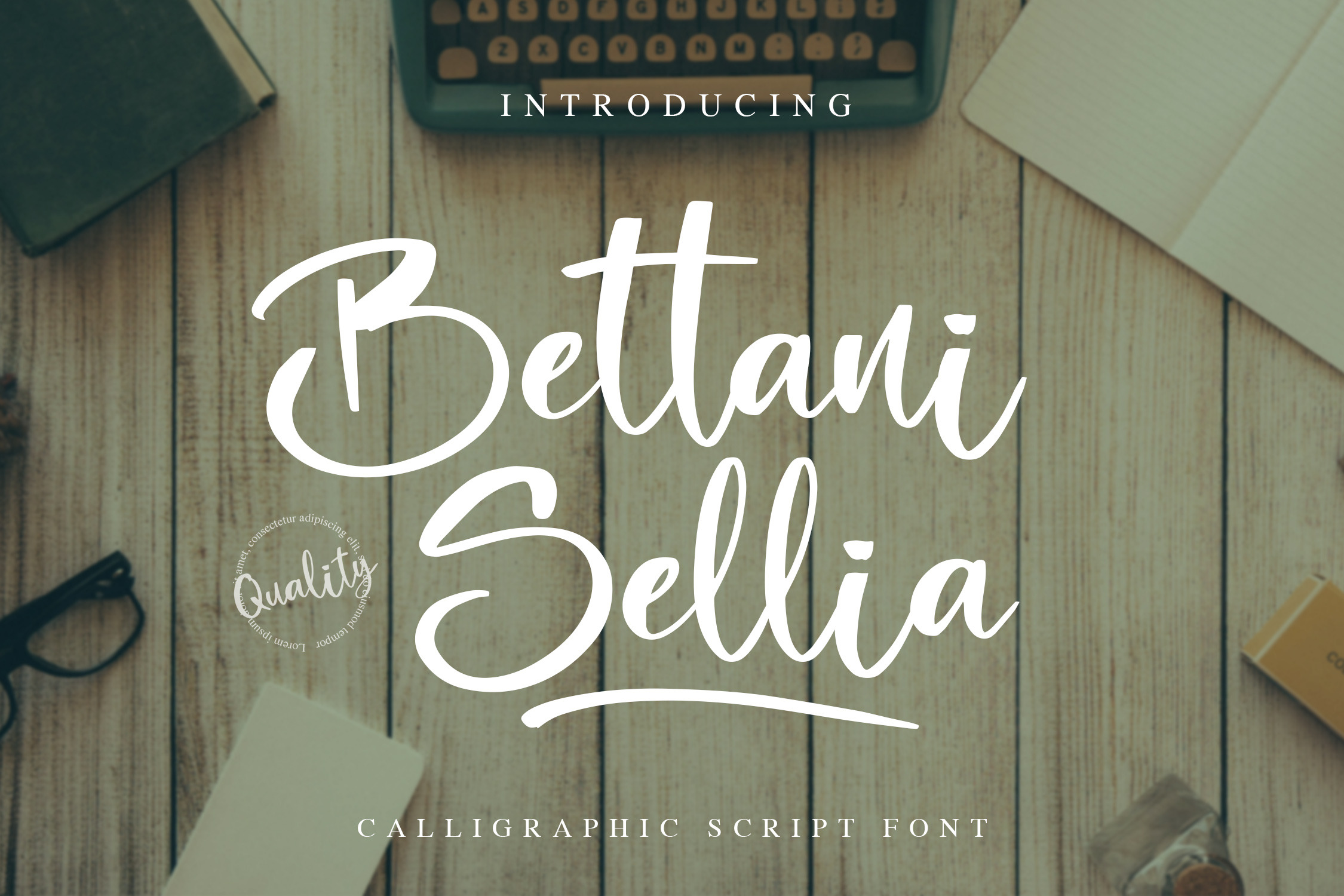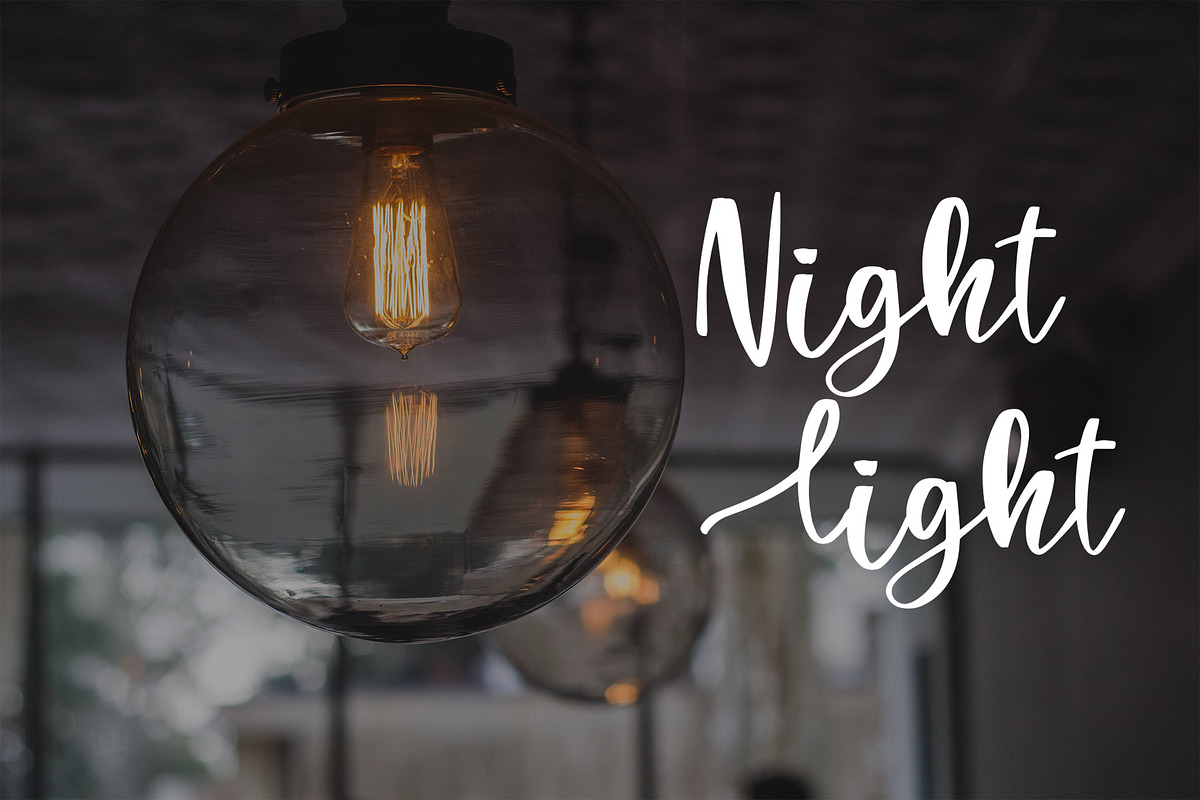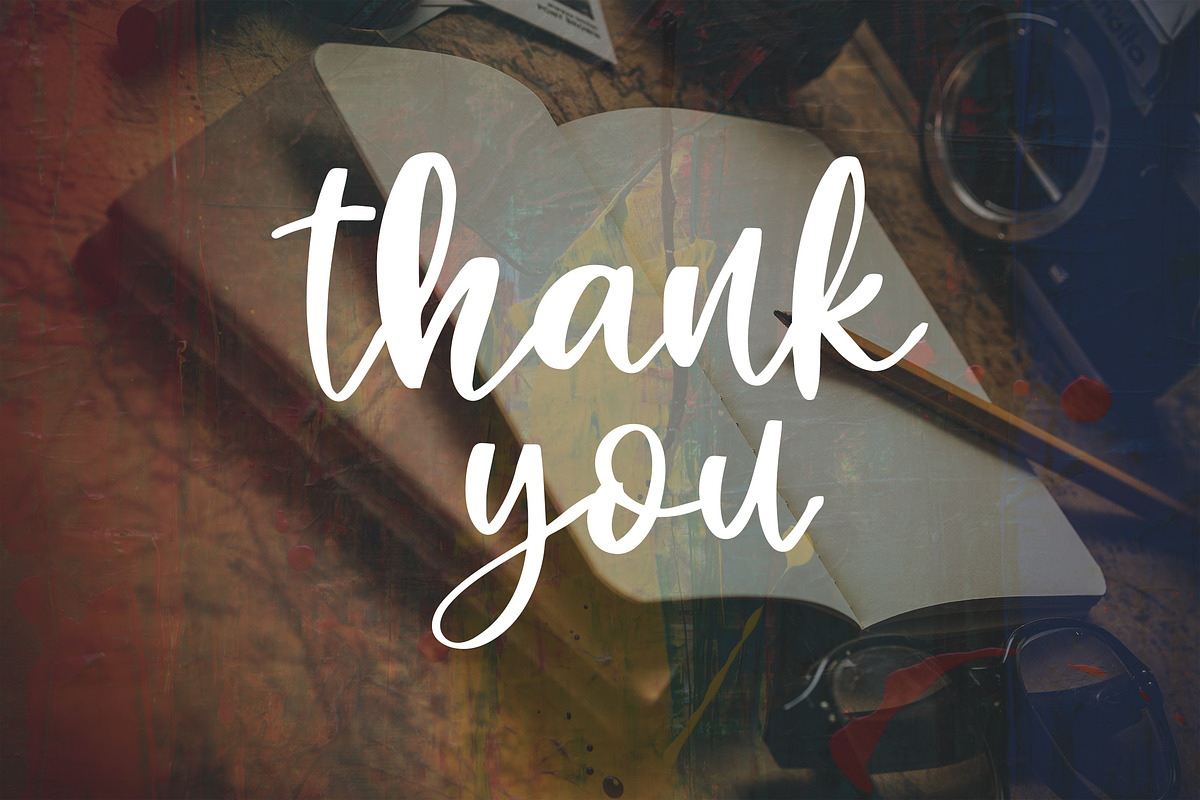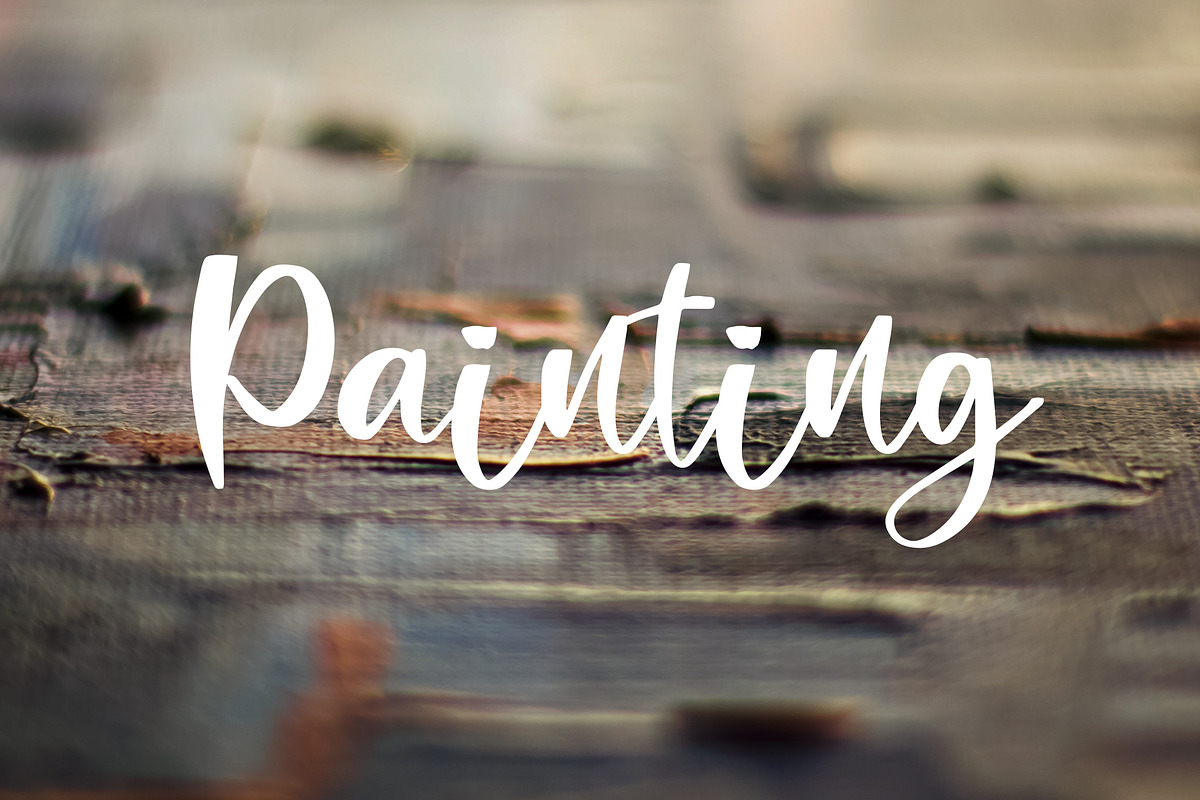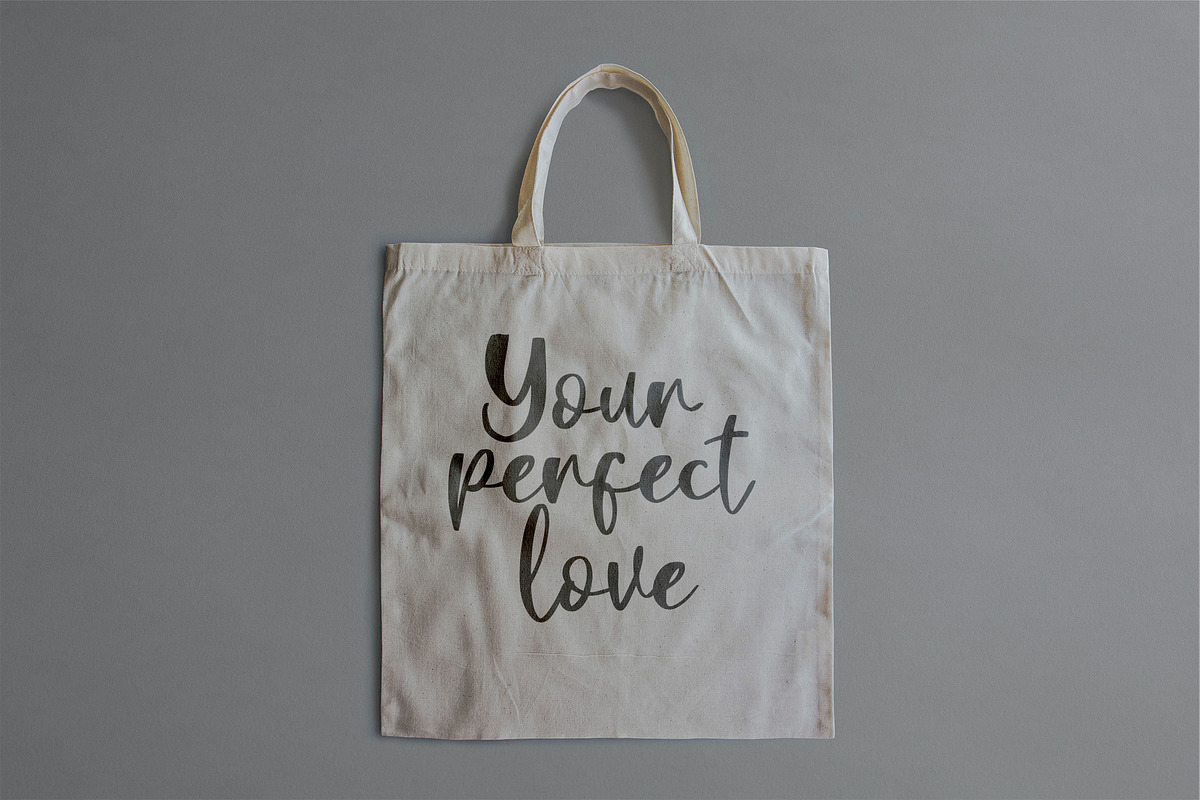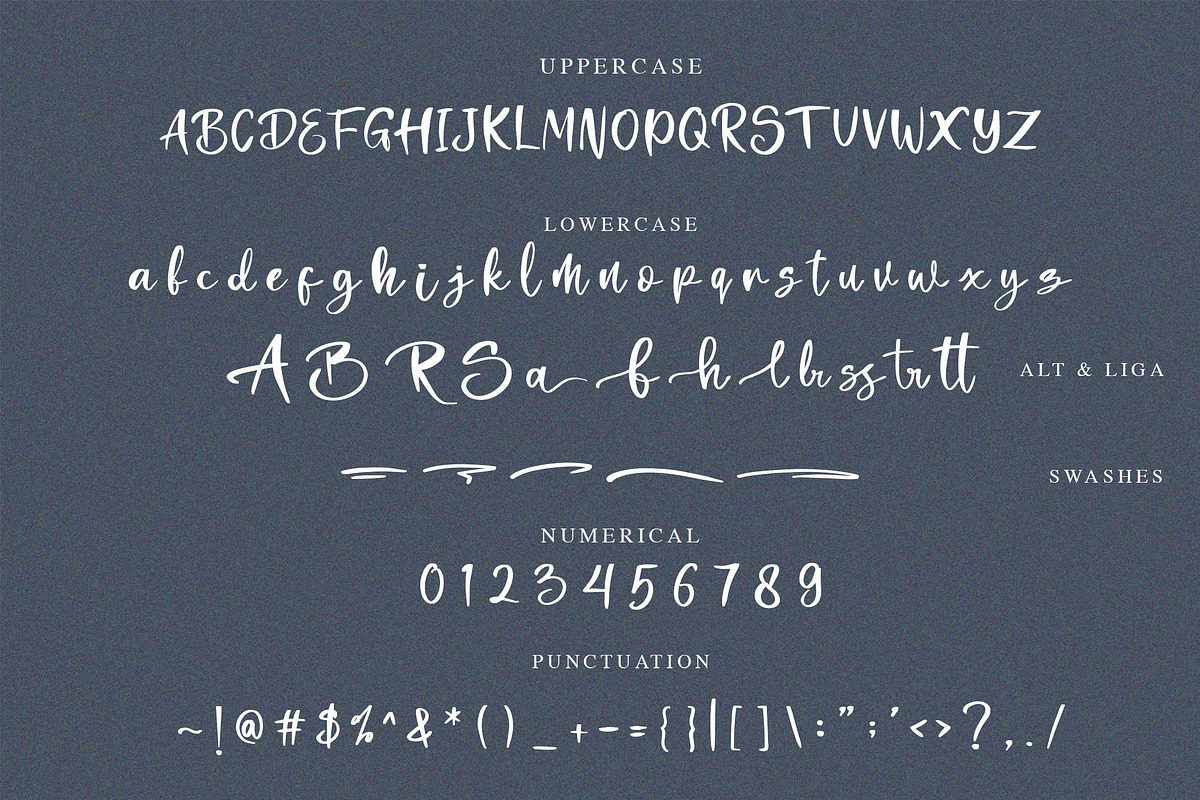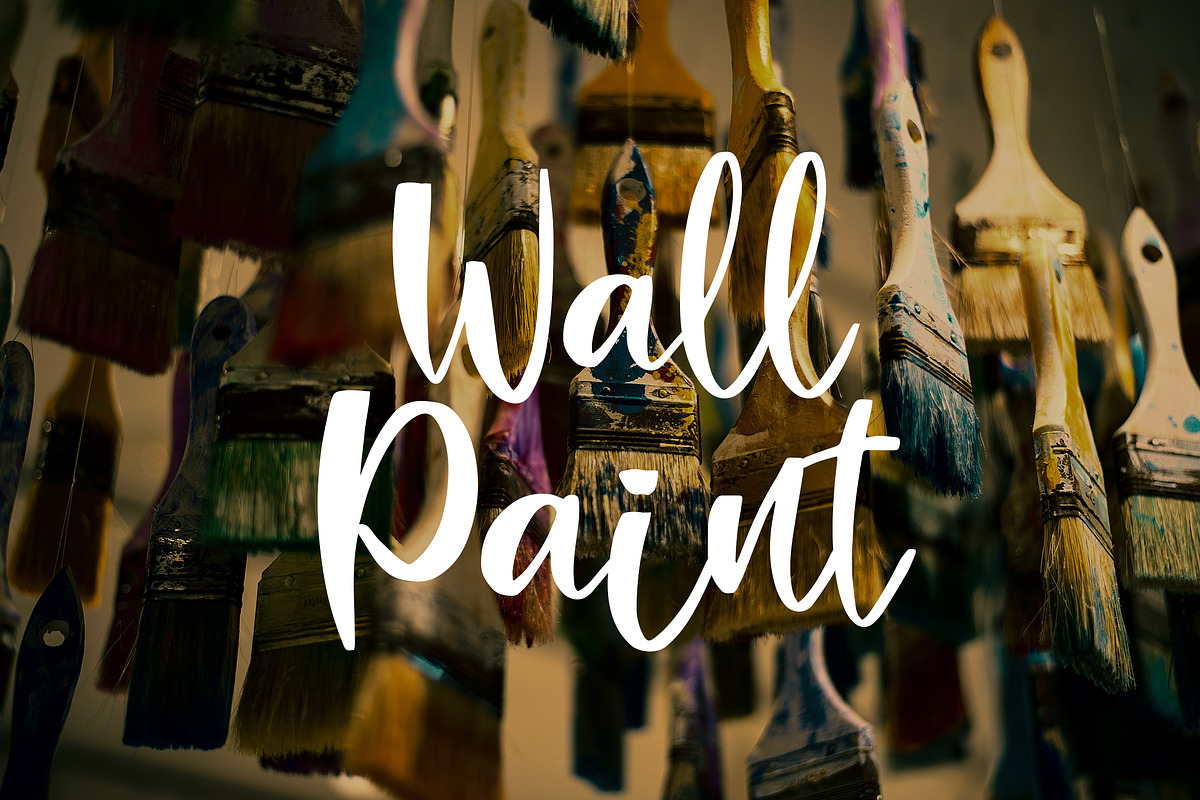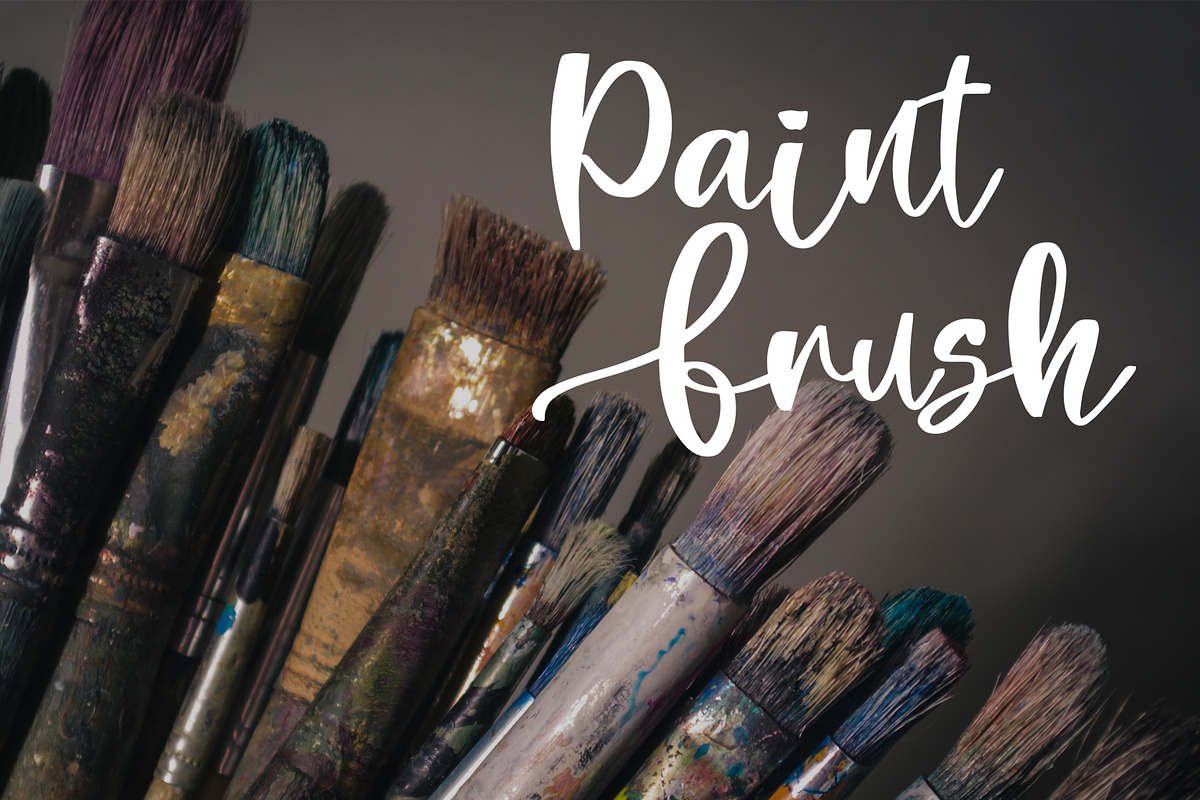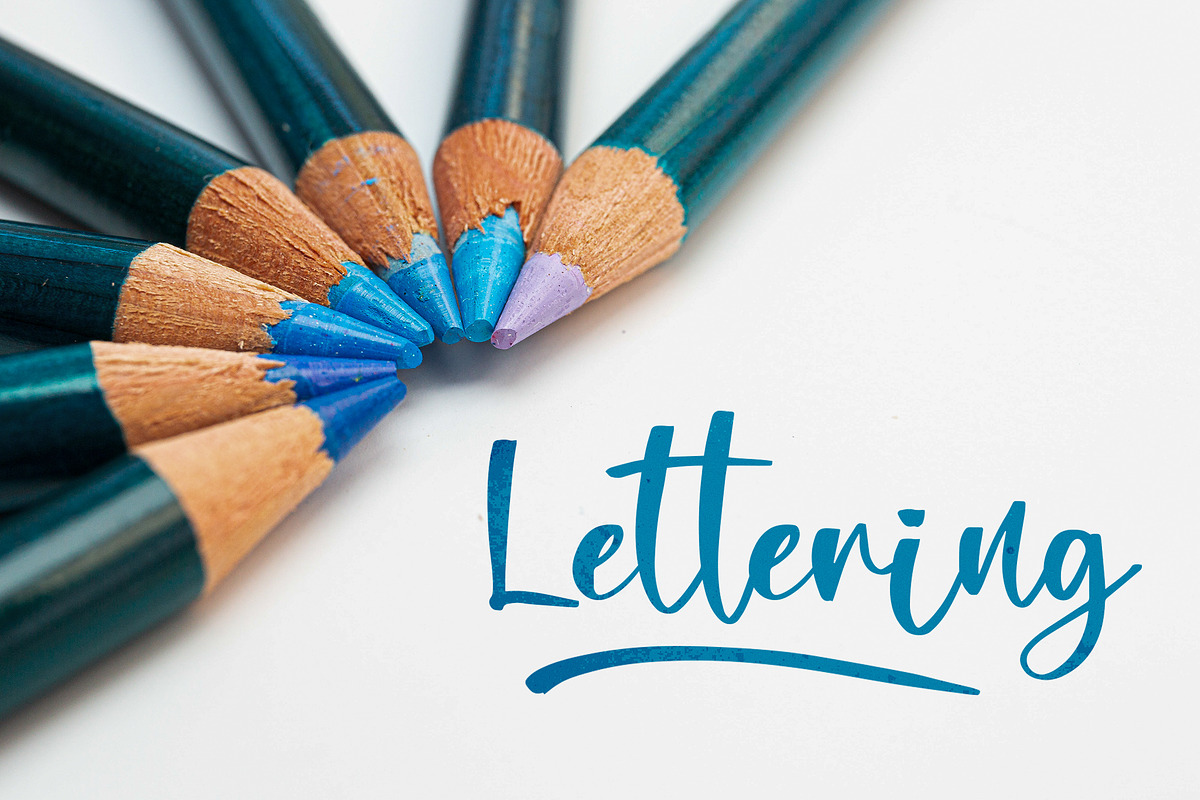
Bettani Sellia - Calligraphic Font
Bettani Sellia is a beautiful brush script font with elegant style. Is a font style that is made with scratches and curvature shapes font characters are very beautiful. Can be applied to support the graphic appearance of the product to be more attractive and unique. This font is suitable for making previews and covers, logo designs, shirt designs and other graphic needs.
Bettani Sellia font with uppercase characters A-Z, lowercase characters a-z, punctuation, swashes, stylistic alternate and ligature characters that enhance this font shape.
-Ligature
-Stylistic Alternate
-Swashes